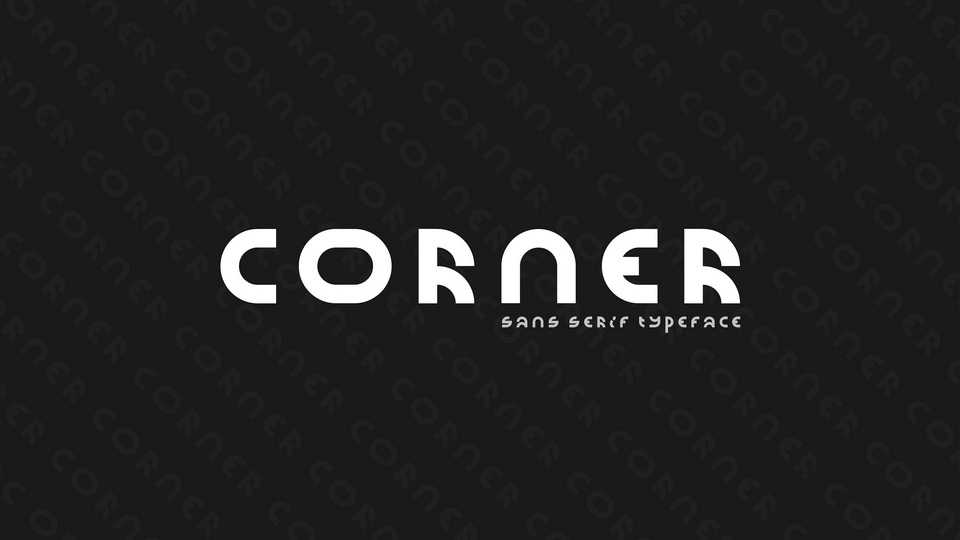
Download Corner font, a modular geometric typeface with a unique look. Corner is well suited for posters, album covers, video games, headlines and bold messages.
Designer: Olivier Tavernier